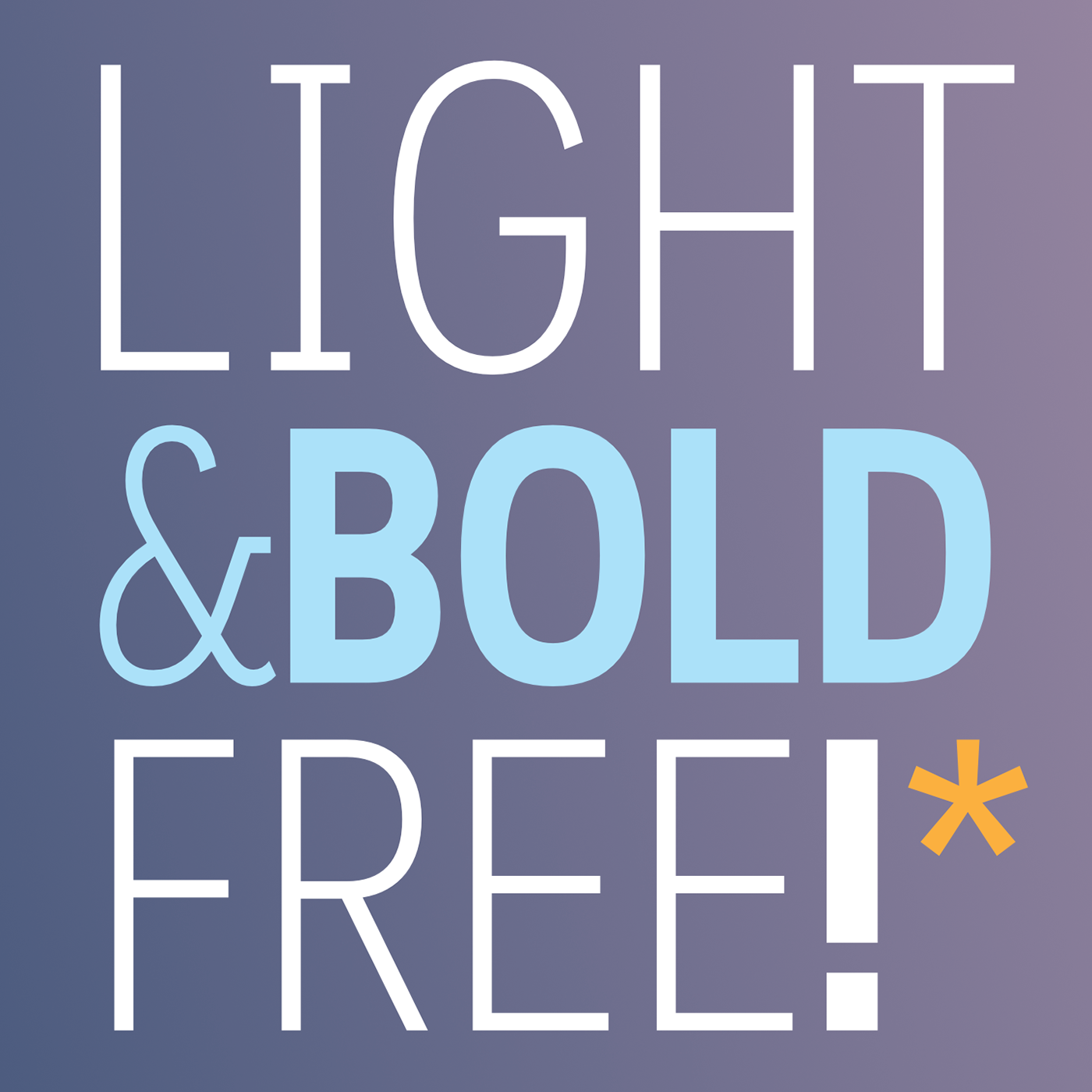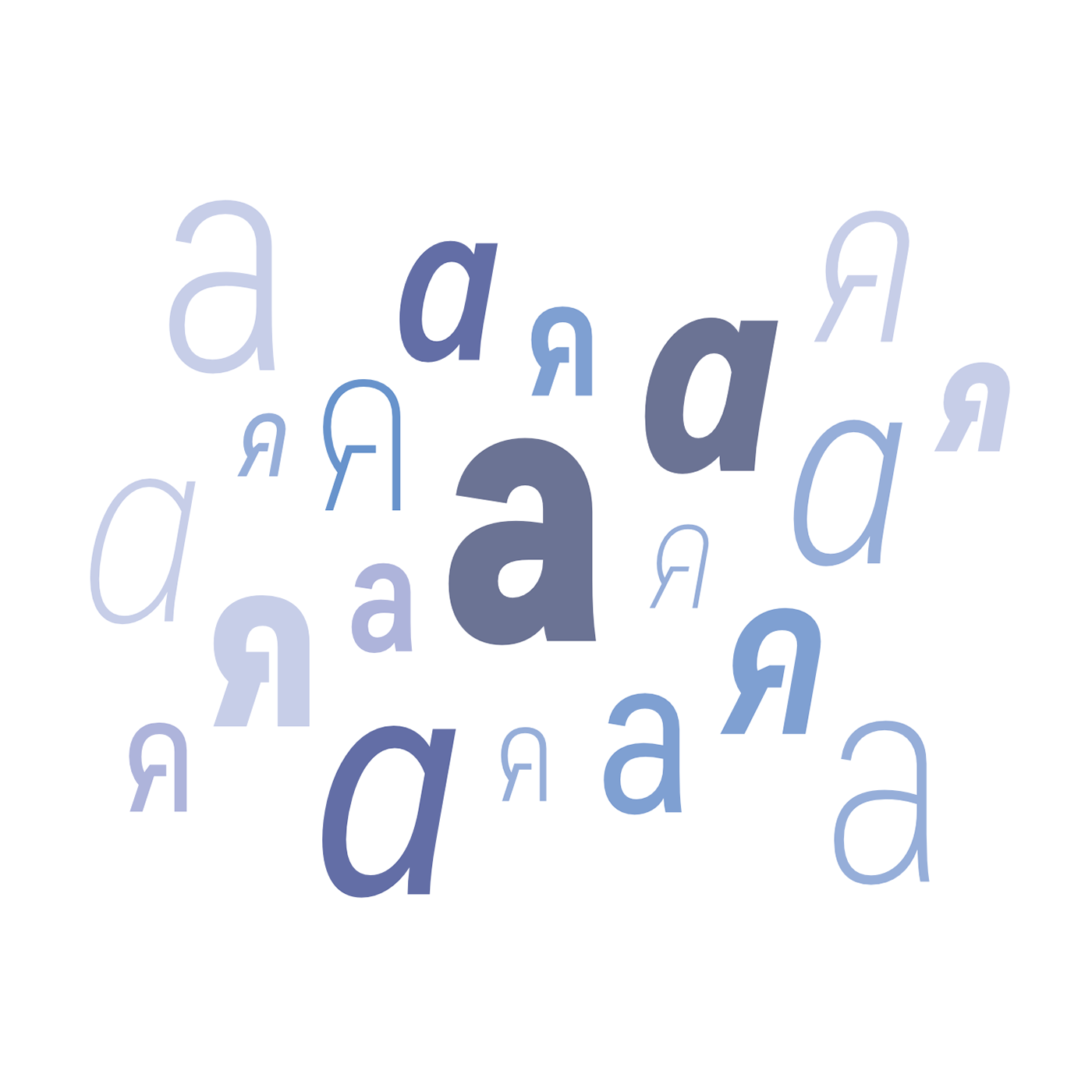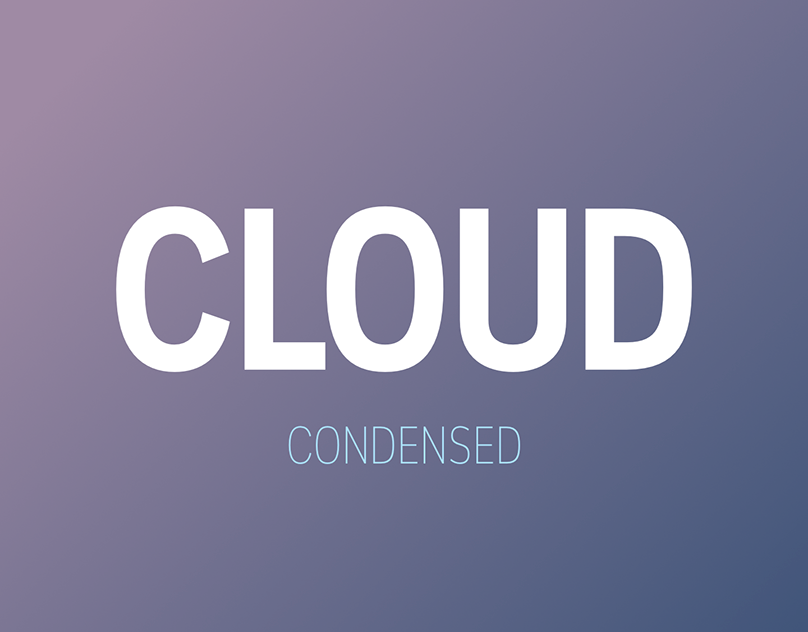
Cloud Condensed Font Family
‘Cloud Condensed’ extends from the popular free ‘Cloud’ font with a narrower shape. For more space
Cloud Condensed is a brand new handwritten font. Cloud Condensed is perfectly suited for stationery, logos, t-shirt, paper, print design, website header, photo frame, flyer, music cover, poster, image slider and much more.